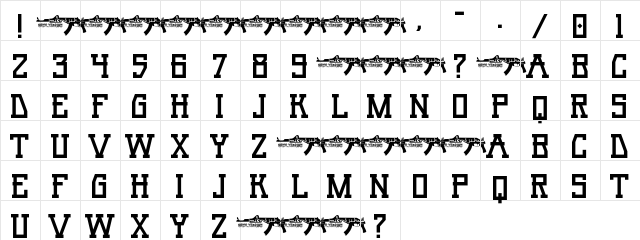
Umar Slab Umar Slab
Design Context for Umar Slab Typeface
Umar Slab combines the readability of serif typography with the visual weight of a slab construction, resulting in a typeface that feels both authoritative and approachable.
Works well in editorial design, news publishing, impactful branding, and poster typography.
Pro Tip: Try Umar Slab set tight in headlines for a classic editorial feel. Its slab serifs create strong horizontal rhythm that anchors a page layout.